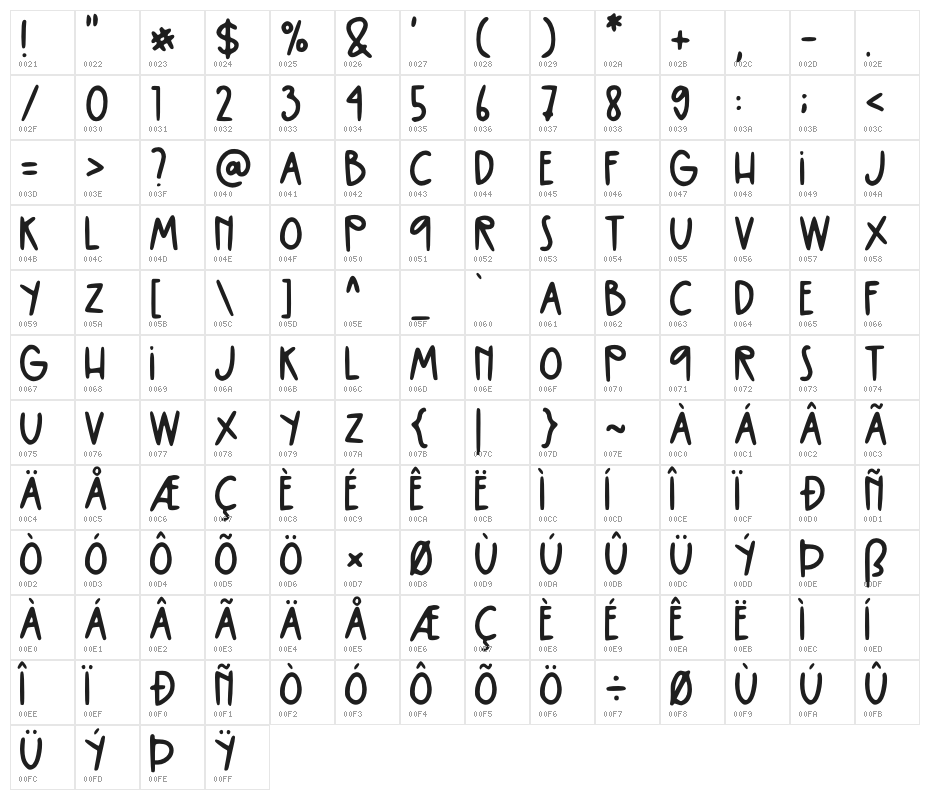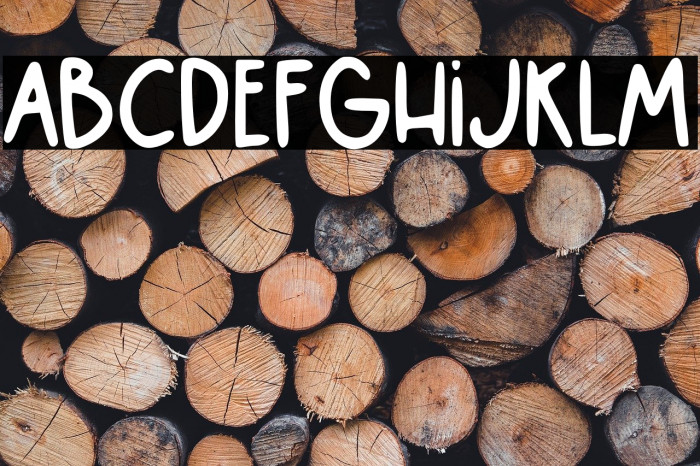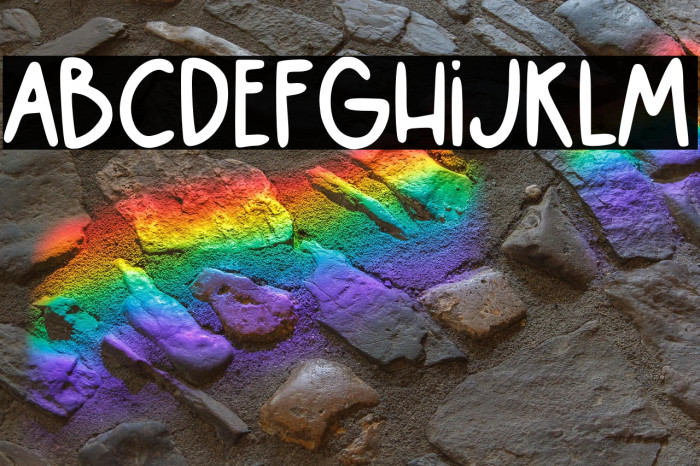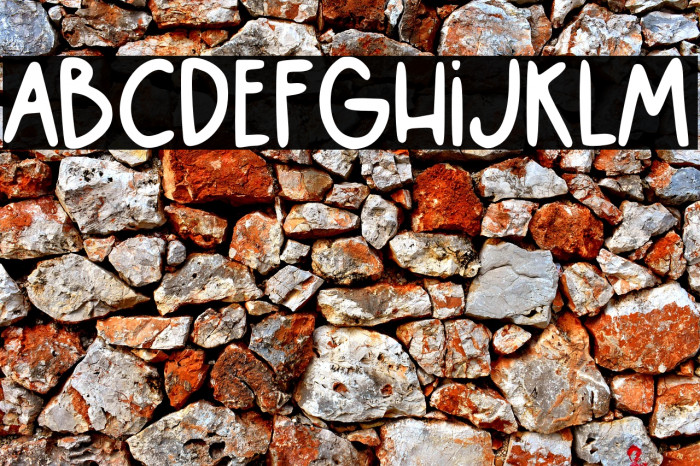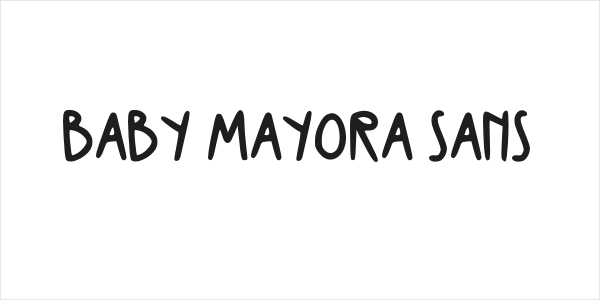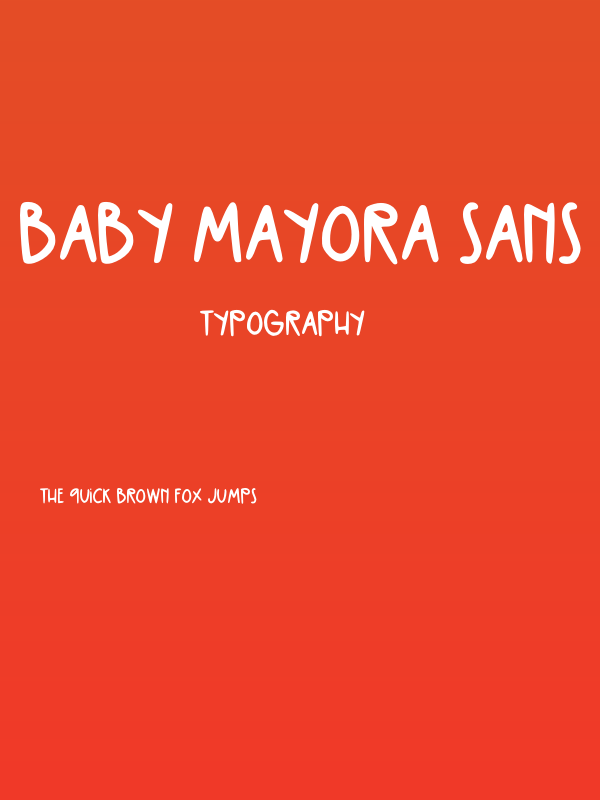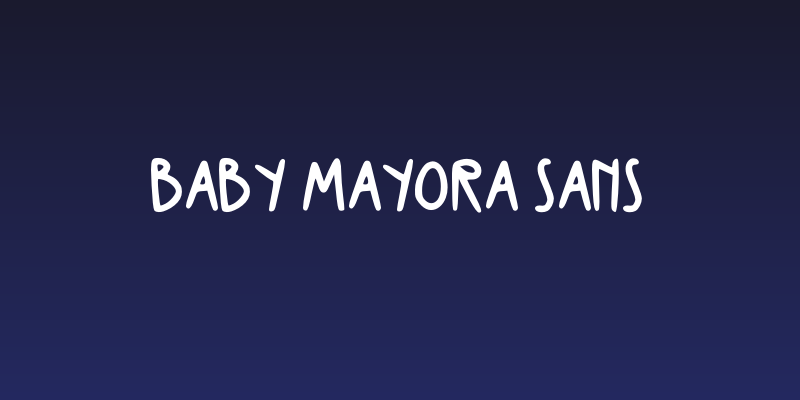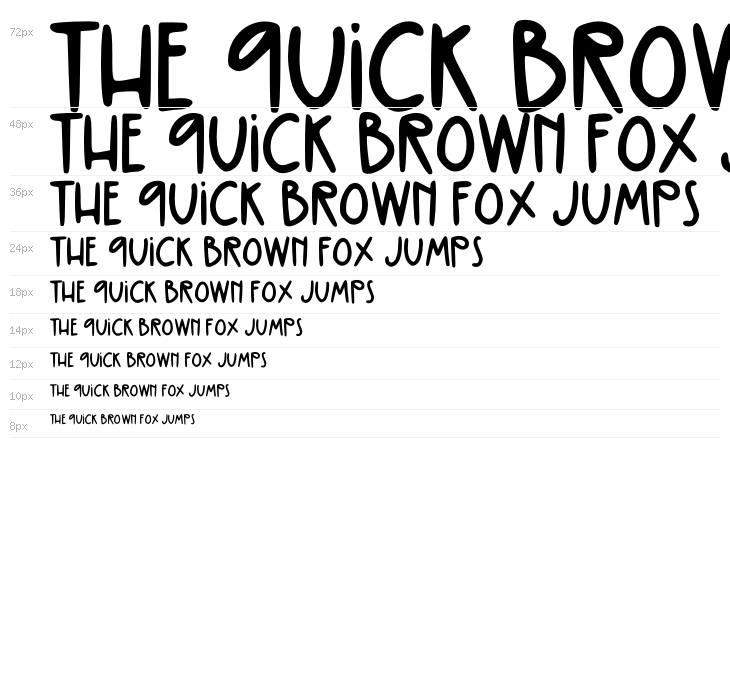
Baby Mayora Sans Font
Baby Mayora Sans Description
This playful and whimsical font features a handwritten style with rounded edges and a casual, friendly appearance. The letters are slightly irregular, adding to its charm and making it ideal for informal and creative projects. The uppercase and lowercase characters maintain a consistent style, with a smooth flow and a sense of movement. The numbers and special characters are equally playful, fitting seamlessly with the overall design. This font exudes a youthful and energetic vibe, perfect for projects that aim to convey a sense of fun and creativity.
| Proposed Projects | Ideal for children's books, greeting cards, playful branding, and creative posters. |